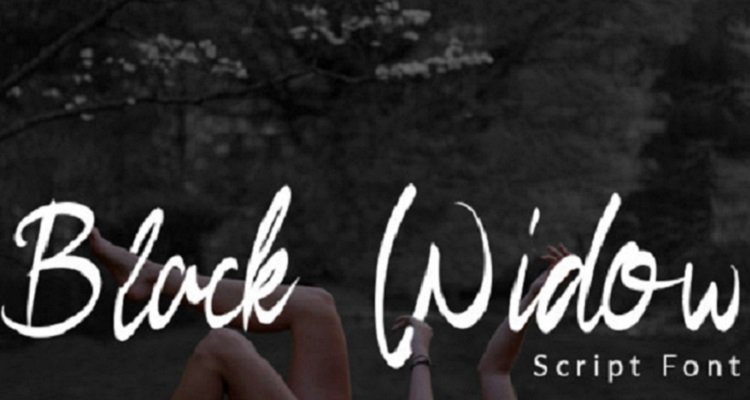
Free Black Widow Script Font
Proudly Black Widow Script Font. Inspired from Marvels’s Character – Black Widow Font, It’s made to look elegant but still strong in every character. This font with the Calligraphy Brush technique with a digital touch. It’s made with the beautifull of Hand Calligraphy with Alternaternate Character for exploring more design.